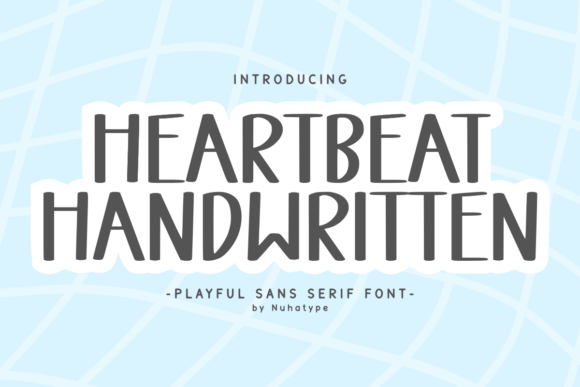
Get Your Creative Heart Beating with the Heartbeat Handwritten Font
Have you ever found yourself in the middle of a creative project, surrounded by scraps of paper, colorful pens, and a vision in your mind? That’s exactly where I was when I stumbled upon the Heartbeat Handwritten Font. Its adorable, handwritten style instantly captured my attention, and I knew I had to share it with fellow crafting enthusiasts.
Designed with a soft, friendly, and natural look, the Heartbeat Handwritten Font is perfect for craft projects, planners, stickers, and DIY designs. Its simplicity makes it easy to work with, whether you’re a seasoned designer or a crafting mom looking for a new font to add to your collection. With its versatility and effortless style, the Heartbeat Handwritten Font is a valuable addition to any designer’s toolkit.
- Font Family: A beautiful, handwritten font with a unique and expressive touch, perfect for adding a personal touch to your designs.
- Unique Characteristics: The Heartbeat Handwritten Font features a unique, hand-drawn feel, with subtle variations in letterform and spacing that give it a truly human touch.
Heartbeat Handwritten Font Review
I recently had the chance to work with the Heartbeat Handwritten Font, and I must say it’s a unique and lovely addition to any design project. ✨ The font’s handwritten feel instantly gives off a personal and emotional vibe, making it perfect for branding, quotes, and other creative content.
- Handwritten feel adds a personal touch ✨
- Perfect for branding, quotes, and creative content ✨
- Good for titles and headings ✨
However, as with any font, there are some limitations to consider. ⚠️ The font can be quite dense, which may make it difficult to read in certain contexts. Additionally, the uppercase letters can be a bit inconsistent in terms of style, which may affect the overall look and feel of your design.
- Dense font may be difficult to read in certain contexts ⚠️
- Inconsistent uppercase letters ⚠️
Overall, I think the Heartbeat Handwritten Font is a great addition to any designer’s toolkit. While it may have some limitations, its unique feel and versatility make it a great choice for a variety of design projects.
The Heartbeat Handwritten Font is ideal for:
- Creating invitations and event graphics.
- Designing social media posts and ads.
- Developing branding and marketing materials.
Great Vibes is a beautiful, elegant script font that is perfect for creating a sophisticated and romantic atmosphere. It’s ideal for use in wedding invitations, greeting cards, and other formal documents. Great Vibes has a similar feel to Heartbeat Handwritten Font, but with a more refined and polished look.
Pacifico is a modern script font that is perfect for creating a beachy, laid-back vibe. It’s ideal for use in beach-themed branding, packaging, and marketing materials. Pacifico has a similar playful feel to Heartbeat Handwritten Font, but with a more relaxed and casual tone.
Carolyna Pro is a modern script font that is perfect for creating a stylish and sophisticated atmosphere. It’s ideal for use in fashion branding, packaging, and marketing materials. Carolyna Pro has a similar elegant feel to Heartbeat Handwritten Font, but with a more refined and polished look.